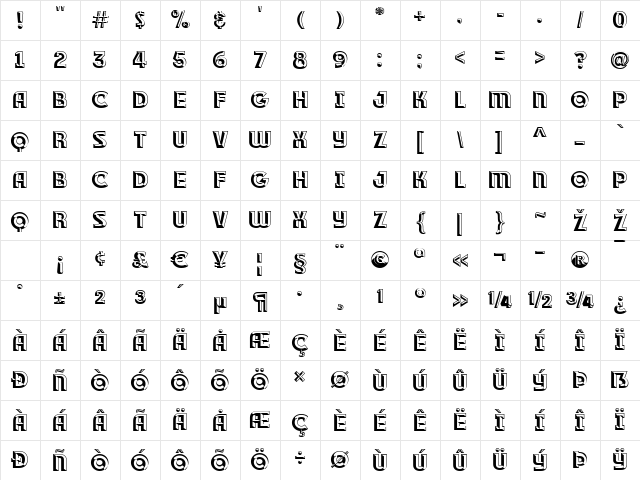
RACE1 Brannt Plus Chiseled NCV Regular
Foundry: The Fontry
Design Context for RACE1 Brannt Plus Chiseled NCV
RACE1 Brannt Plus Chiseled NCV is a composed and adaptable typeface that performs quietly and consistently across a wide range of design contexts.
Who designed the RACE1 Brannt Plus Chiseled NCV Regular font?